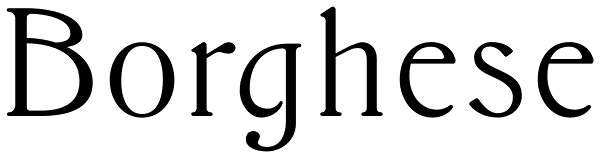
Borghese
Borghese - a 1904 Schelter & Giesecke font in Art Nouveau style was completely redesigned and is an ideal body text companion of display fonts like Ridinger or Reznicek.
Borghese Font